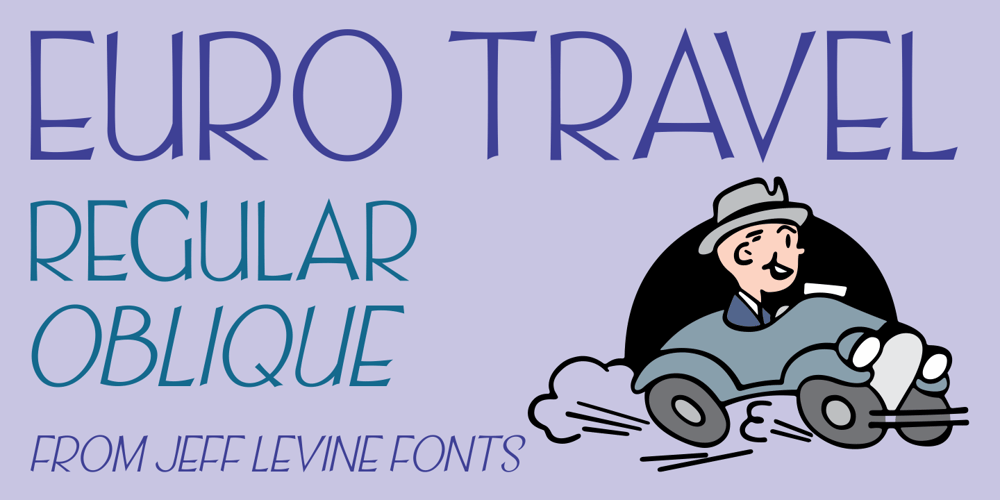
Euro Travel JNL Font Family was designed by Jeff Levine and published by Jeff Levine. Euro Travel JNL contains 2 styles and family package options. A German travel poster from 1927 became the design inspiration for a type revival because of its pleasantly hand lettered sans serif type style.Euro Travel JNL is available in both regular and oblique versions.